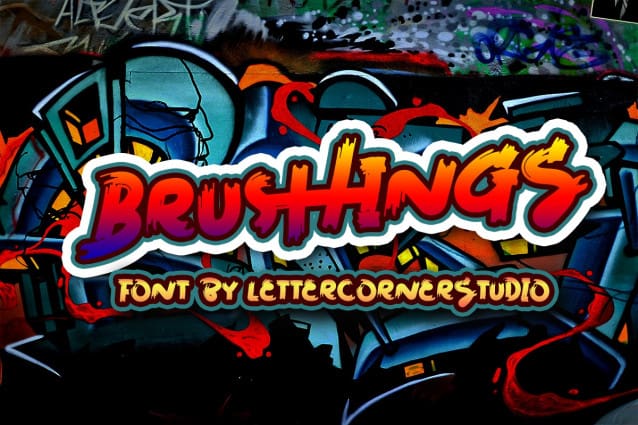
Brushings Brush Font
Brushings Brush Font, is a brush display font inspired by horror and thriller movie posters. This creative font has hard strokes and signature styles that speak to instant nightmare sensations.
Brushings Brush Font will help you create unique typographical designs for highway and streetwear projects. It’s perfect for branding, labeling, clothing, movie title, album cover, logos, and many more.
It is a universal and modern font. The owner of endless possibilities!